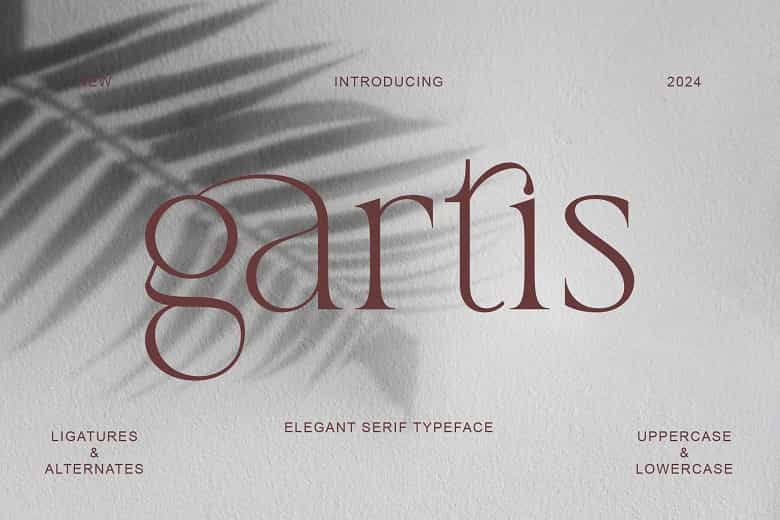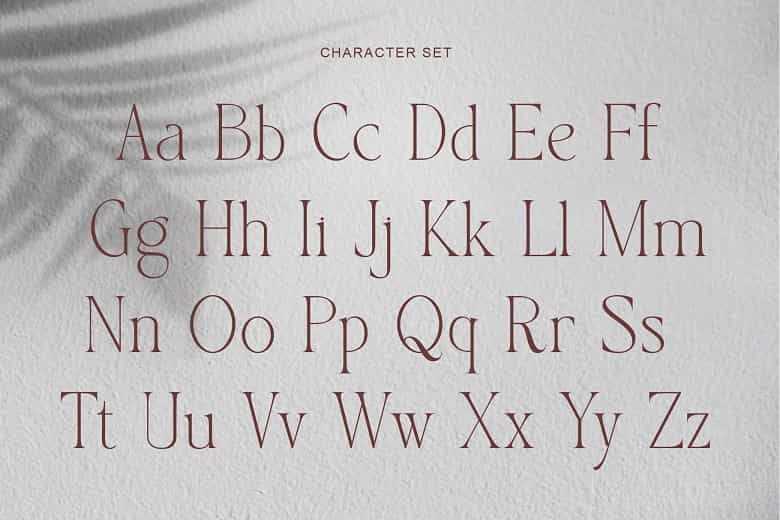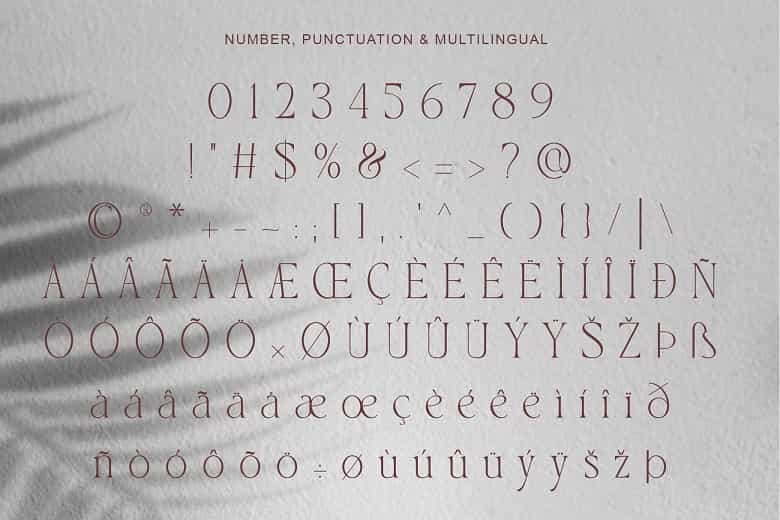
Gartis is a beautiful, contemporary serif font. Thanks to the modern and cute look, Gartis will be an elegant and clean addition to your projects like websites, logos, business branding, social media captions, wedding invitations and many others!